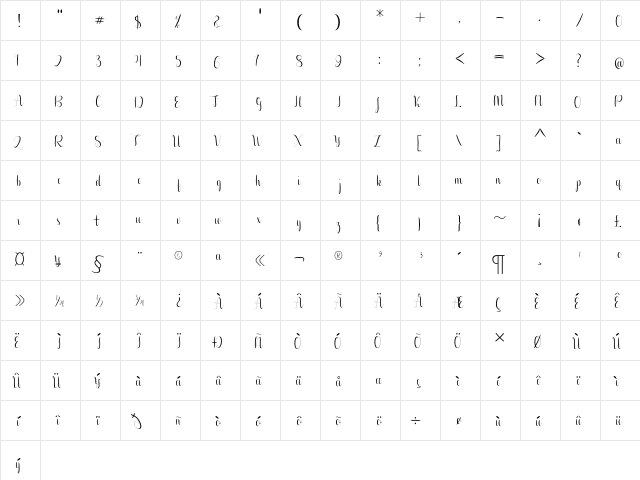
Aurelia regular Regular
Design Context for Aurelia regular Typeface
Aurelia regular is a composed and adaptable typeface that performs quietly and consistently across a wide range of design contexts.